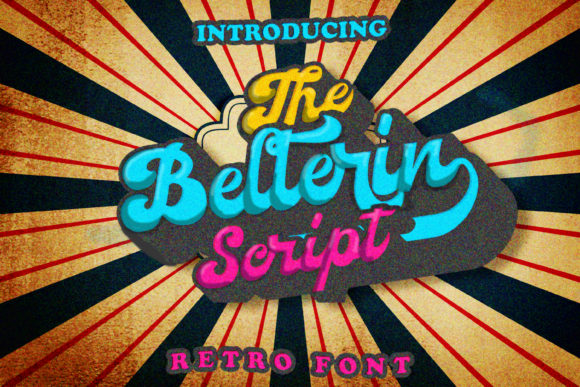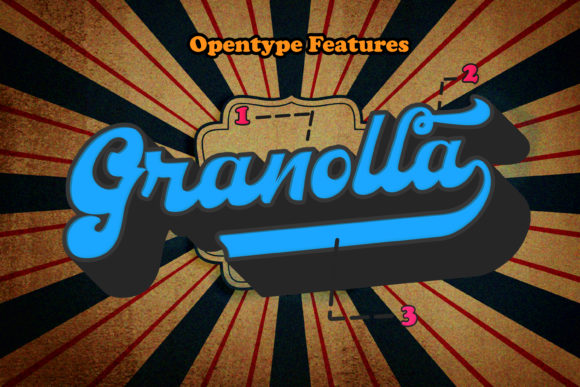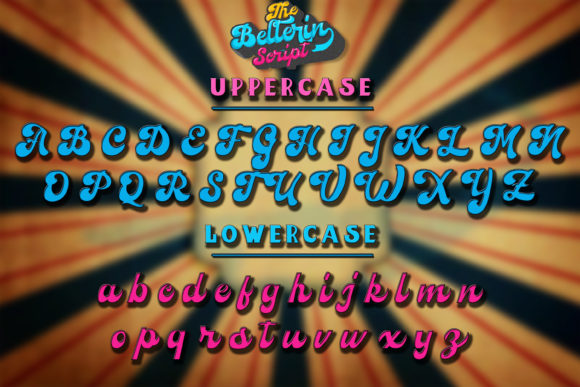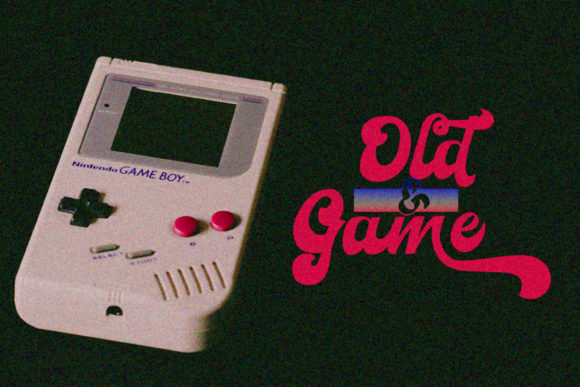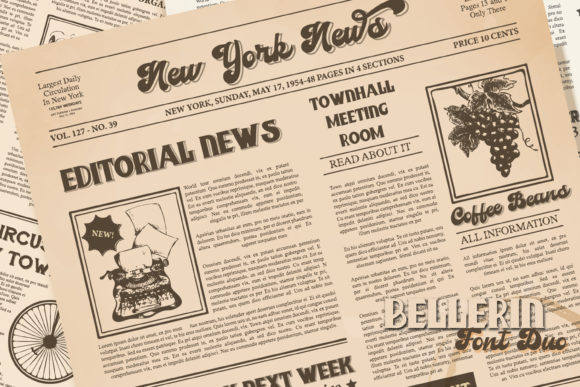
Bellerin Font
Bellerin is a fun and bold script font that’s straight from the 70s. Get funky with this unique font, and turn any design idea into a true standout.